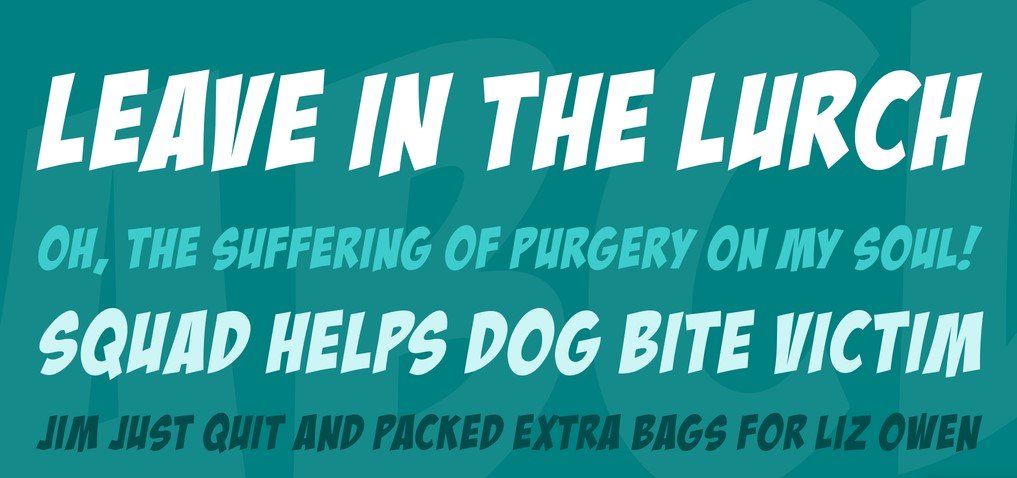
Introducing Bada Boom BB Font. A font that is similar to logo font designing company took the price for designing and freeing it for the primary time. So, he will become the most important founding father of this brush font.
Proper right here we are going to share is an open delivery license typeface. Alongside its distinctive points, big languages help and surpassing legibility it’s far surely one of the maximum favorite fonts everywhere the globe.
This terrific font has to be had best in a single usual range with authentic kind capabilities. And this everyday sort has to include 427 glyphs in conjunction with one thousand devices consistent with em.
Furthermore, it has 389 characters and supports many global languages. On this method, it will defiantly work properly in each issue.
So, due to this selection, you’ll use this font that looks like orkney font for a big market region given that numerous designers constantly get the benefits from that typeface.